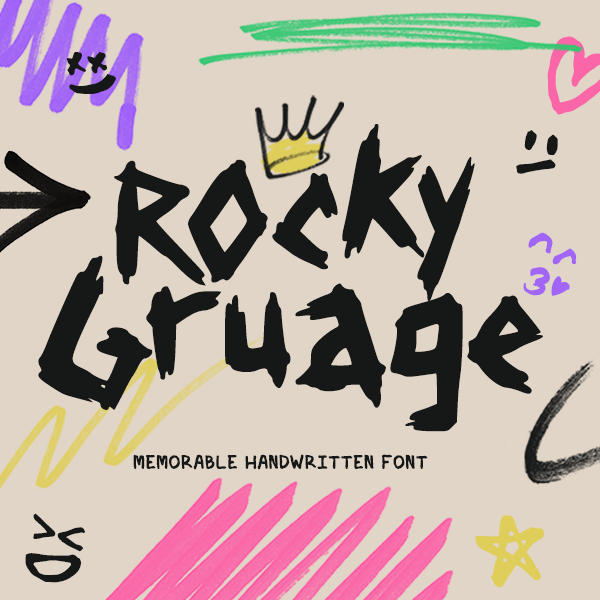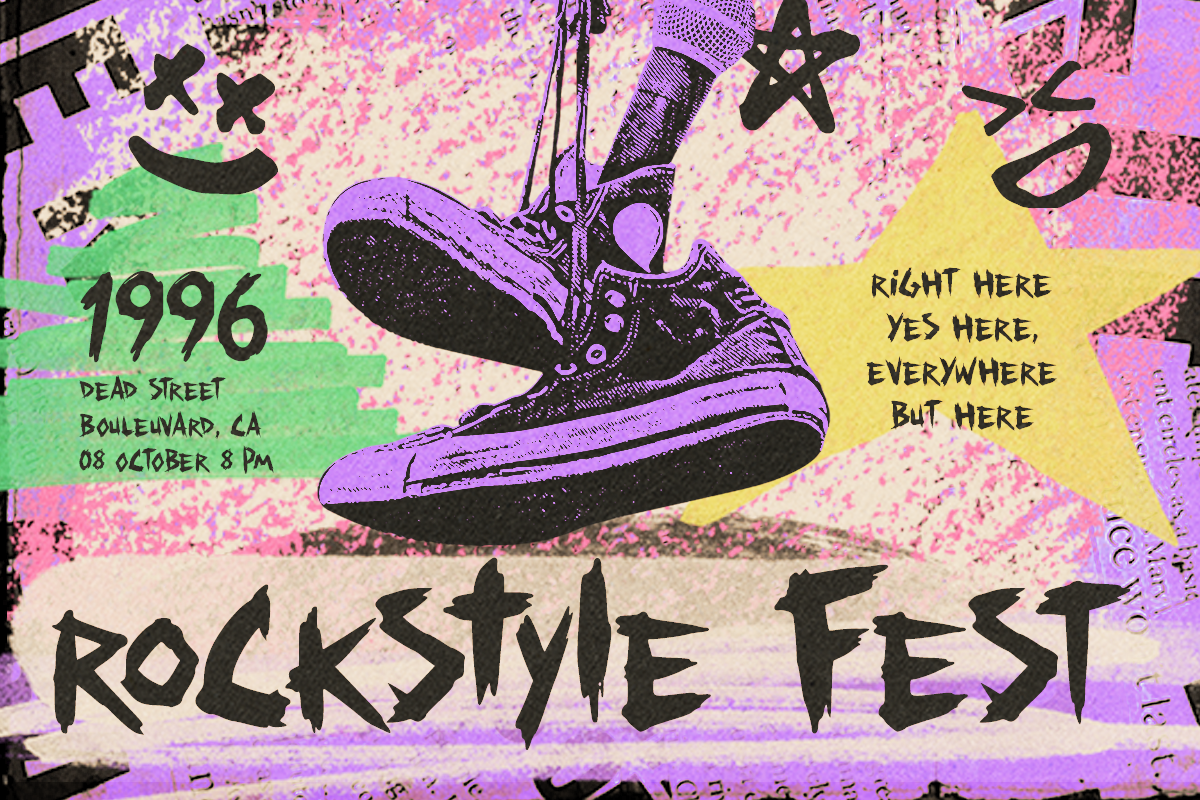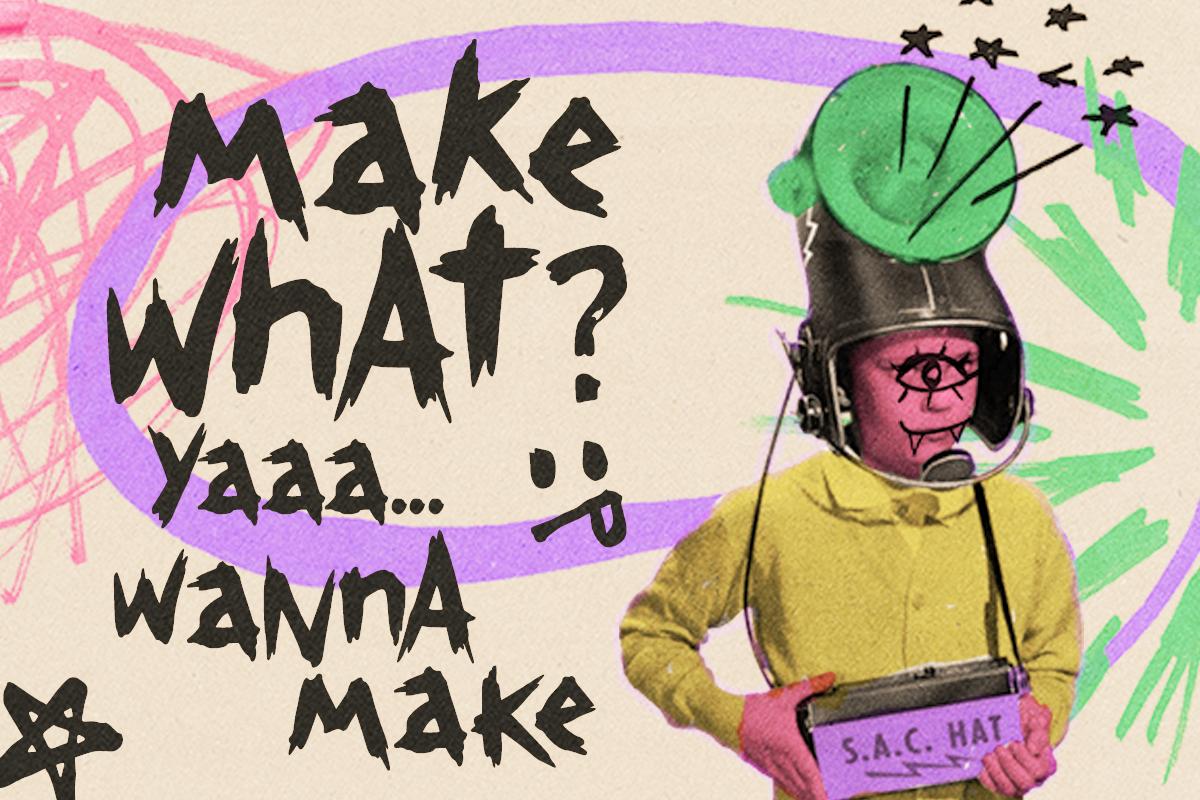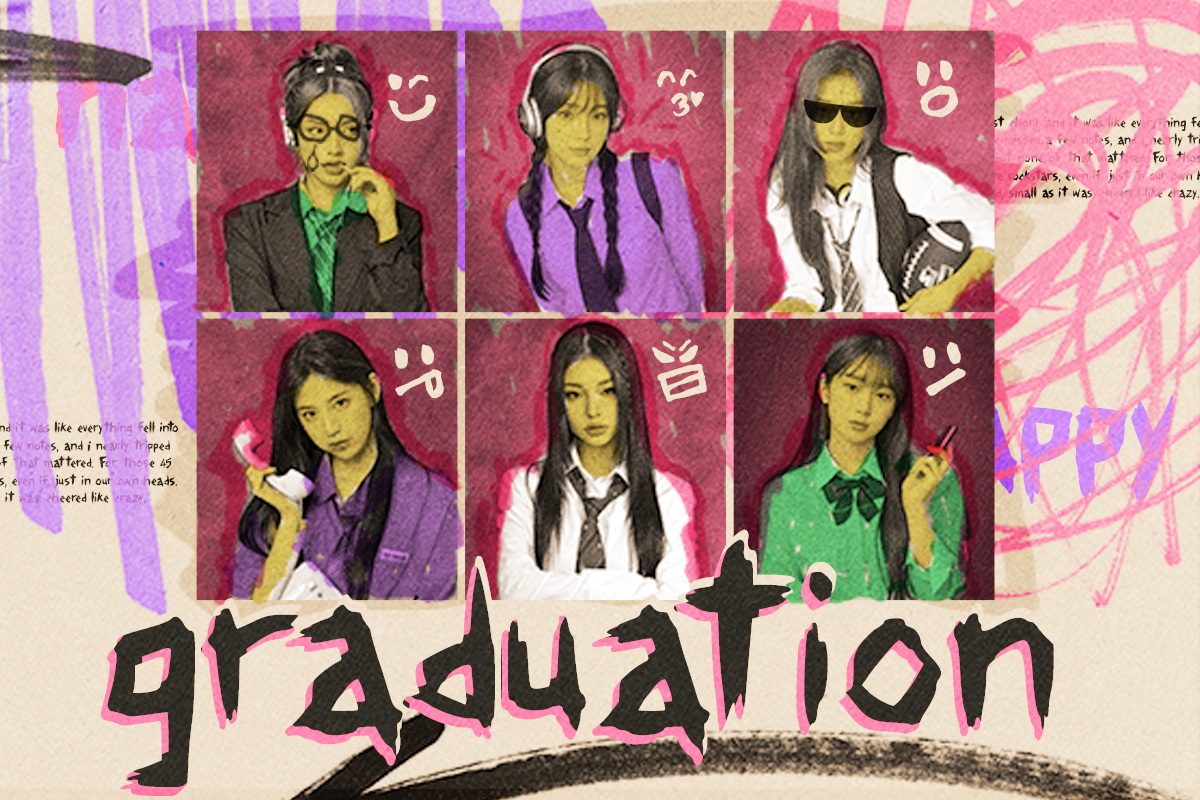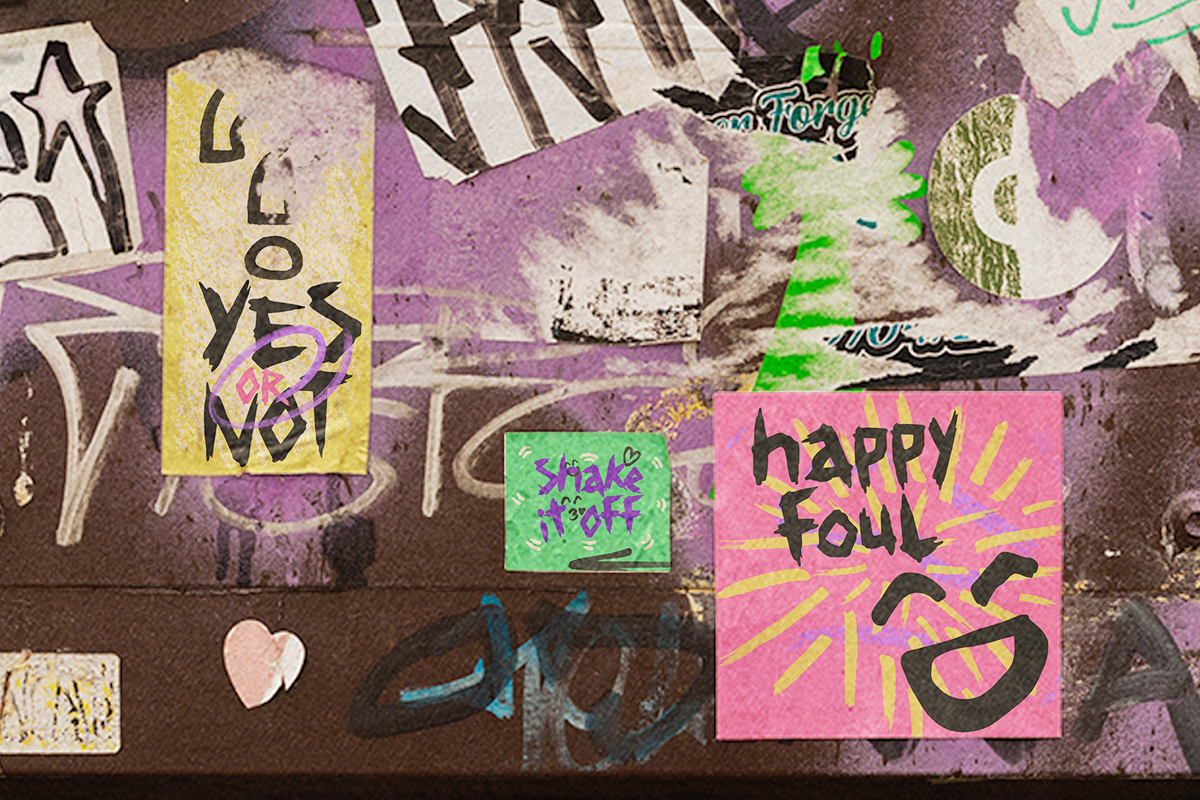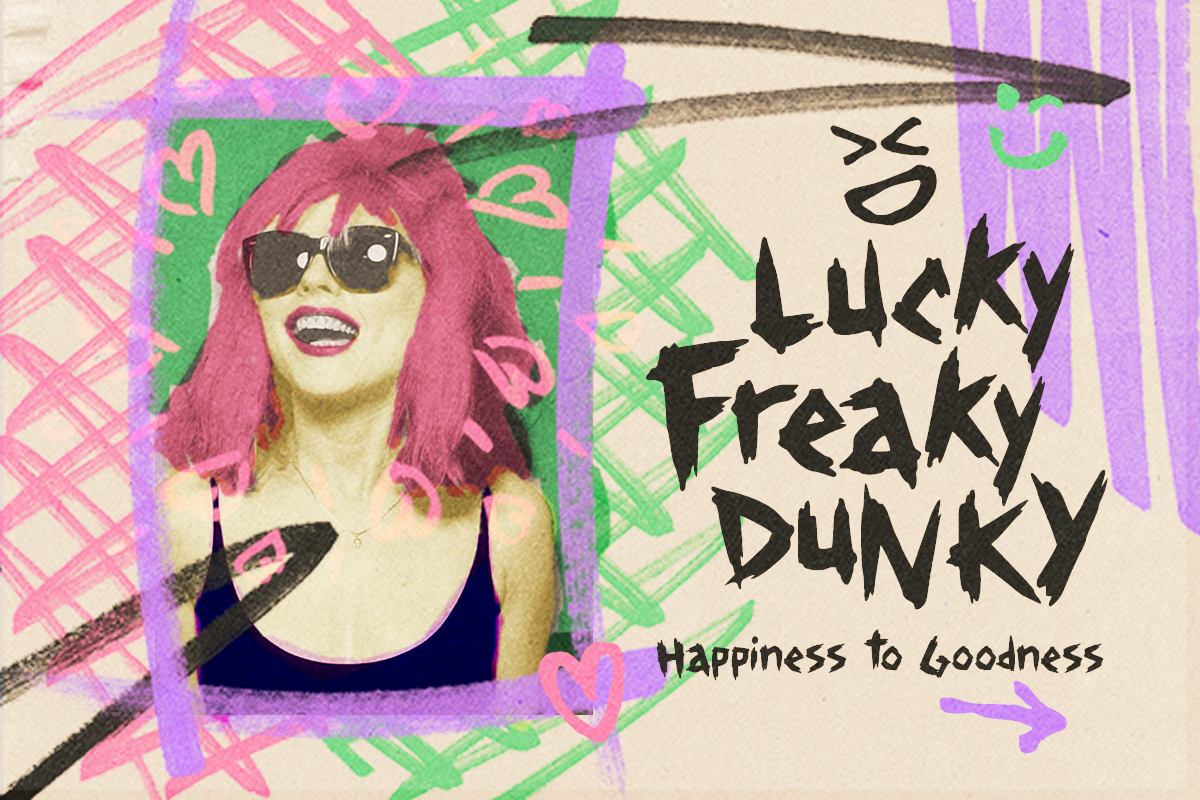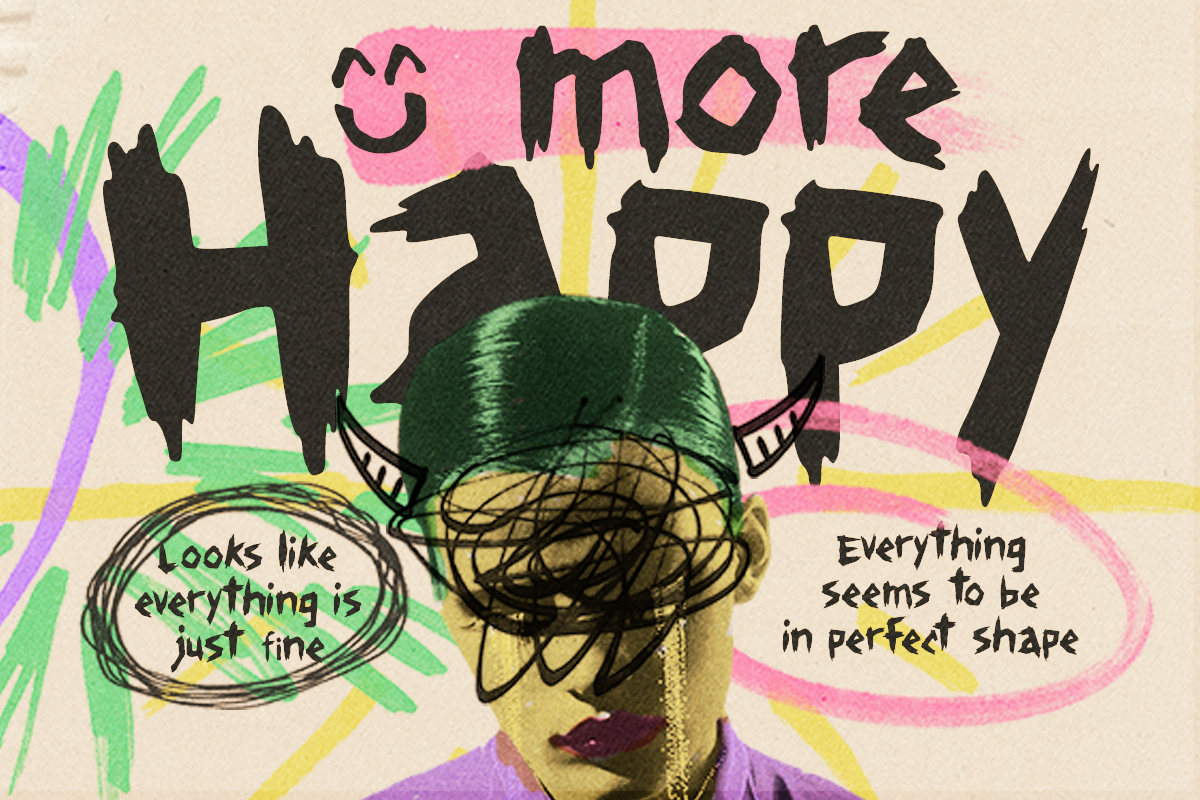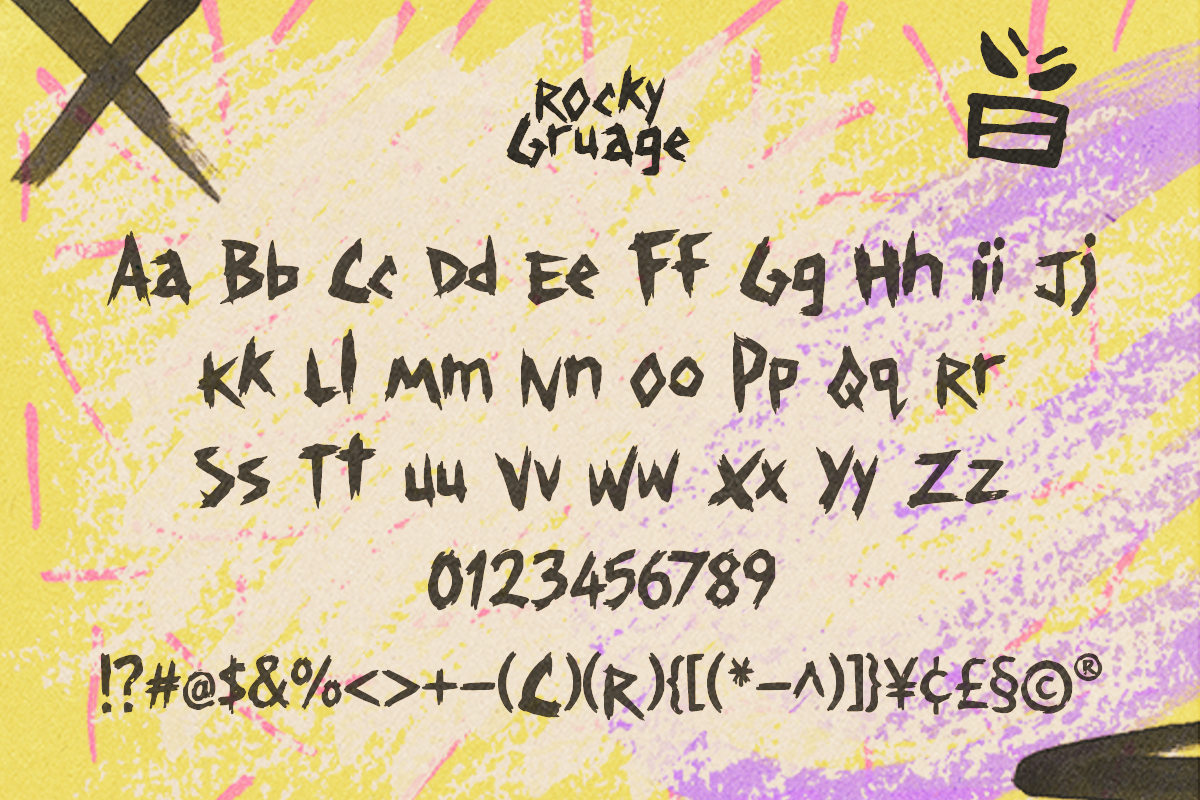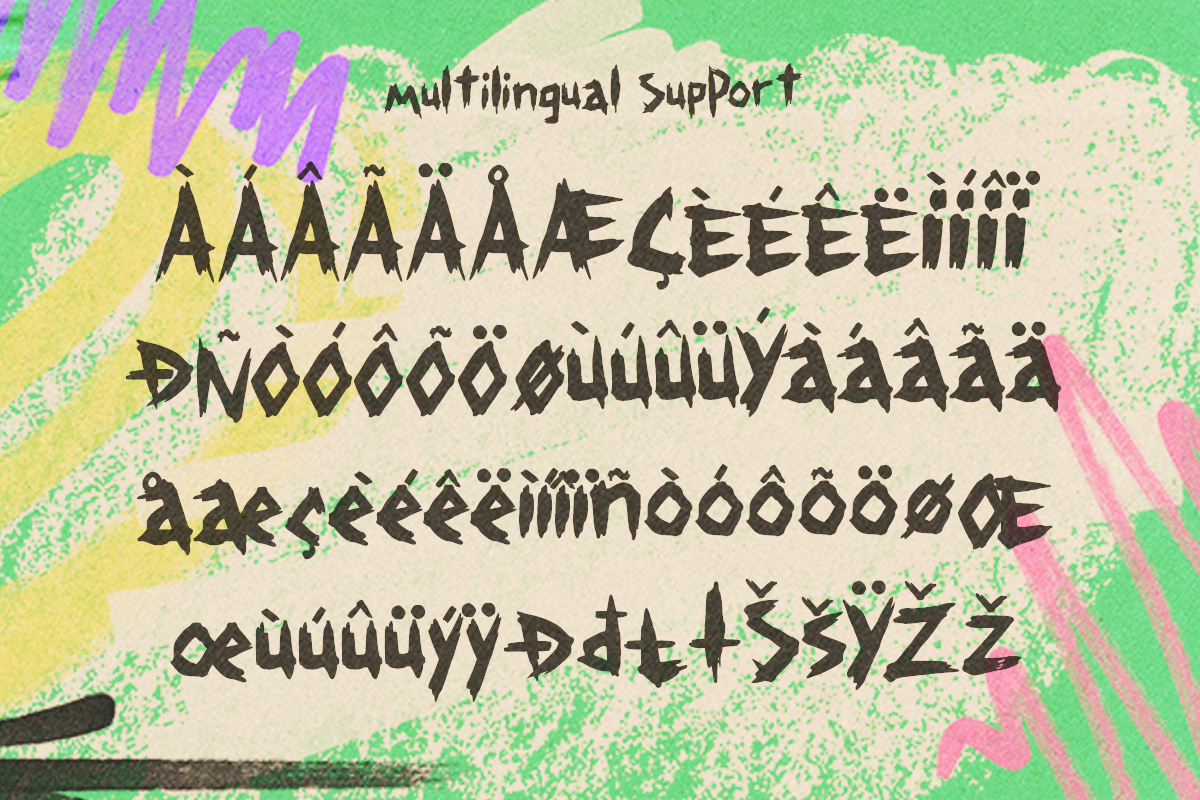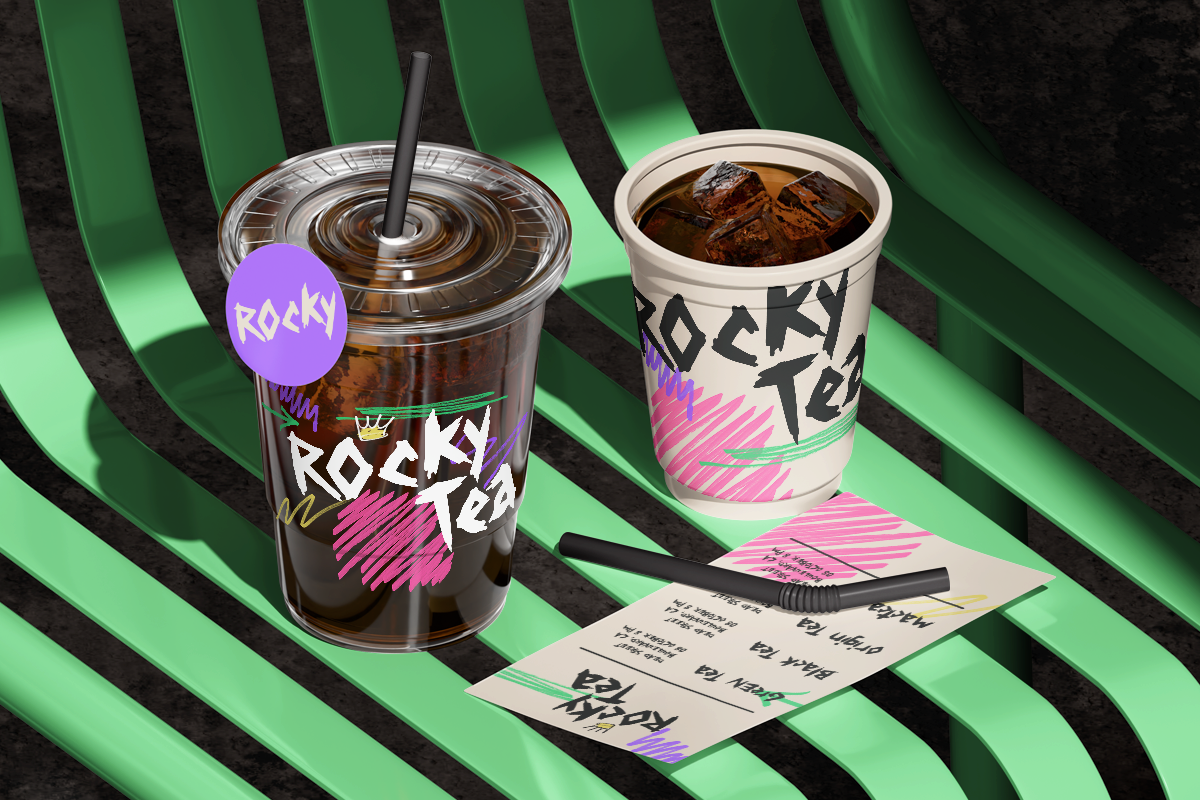
Rocky Gruage Font | Raw Handwritten Marker Typeface
Rocky Gruage is a bold hand-painted brush display font inspired by street art, graffiti culture, and raw artistic expression. Featuring rough brush textures, irregular edges, and energetic letterforms, this font delivers an authentic handcrafted look that instantly grabs attention.
Designed for creators who want to make a bold statement, Rocky Gruage brings attitude, personality, and creative freedom to every project. Whether you’re designing eye-catching posters, streetwear branding, album covers, gaming graphics, or social media content, this font adds a powerful urban vibe with a natural hand-painted feel.
The organic brush strokes and imperfect details give every letter a unique character while maintaining excellent readability for headlines, logos, and large display text.
Perfect For: Streetwear Branding, Logo Design, Posters & Flyers, Album Covers, Music Artwork, Gaming Titles, YouTube Thumbnails, Packaging Design, Social Media Graphics, Event Promotions, Book Covers, Creative Headlines, Urban & Graffiti Themes.
Bring a raw, expressive, and rebellious style to your next creative project with Rocky Gruage.